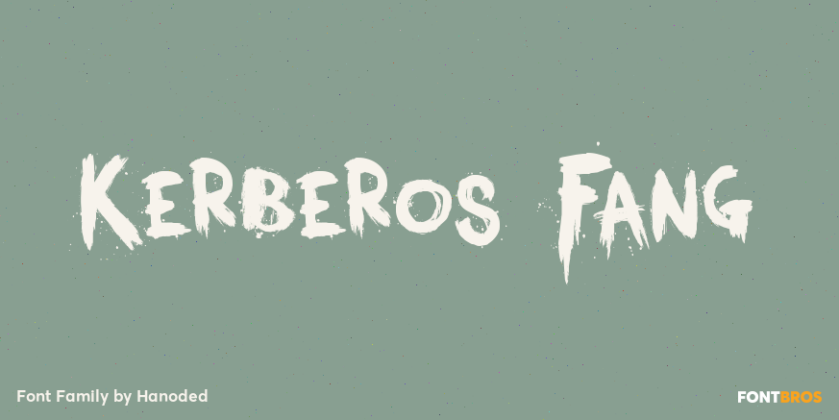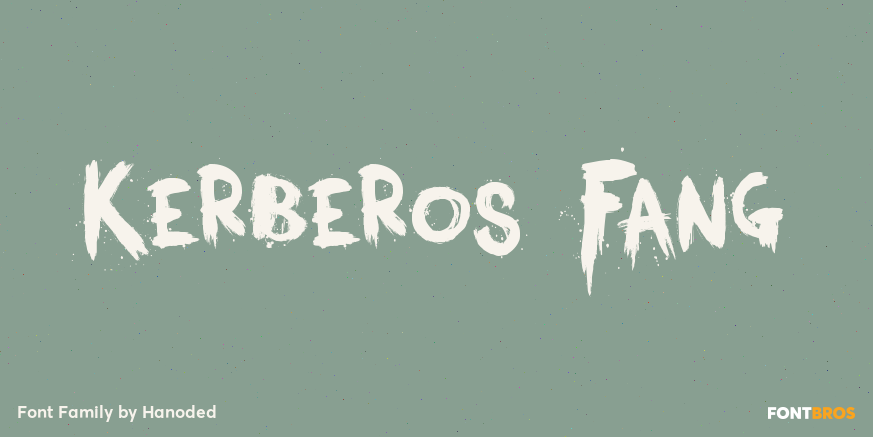
HomeFont BrosHandwrittenKerberos Fang HandwrittenUrbanSpecial Effect Kerberos Fang FacebookXPinterestWhatsApp 1 of 1 About Kerberos Fang A creepy, blood-splattered horror font, made entirely with brushes and ink. Ideal for websites and halloween.  DOWNLOAD ON FONT BROSThis font is sold and delivered by Font Bros. Font Canyon may earn a commission if you buy through this link. People also explored Grunge Circles Font Damien Karmila Font Alley Font Duo Blank Orange Duo Skatera Font Bagea Font One Week Font Willy Vita Font 292 0 TagsKerberos Fang Font Previous articleSouplesseNext articleMaze Monogram LEAVE A REPLY Cancel reply Comment: Please enter your comment! Name:* Please enter your name here Email:* You have entered an incorrect email address! Please enter your email address here Website: Save my name, email, and website in this browser for the next time I comment. Personal Use Free Token No 721 Personal Use Free Read more about this font Hallo Betty Personal Use Free Read more about this font Laneway Personal Use Free Read more about this font Fadhista Personal Use Free Read more about this font BLOG To increase your work productivity, choose the most readable fonts. In today's fast-paced work environment, where digital communication and information consumption are integral to our daily routines, the choice of fonts can significantly impact... Using Fonts in Digital Marketing: Tips to Strengthen Your Brand Identity Top 7 Google Fonts Alternatives for Faster and Privacy-Friendly Web Design (2025) Elegant Wedding Invitation Fonts – Handwritten & Script Fonts